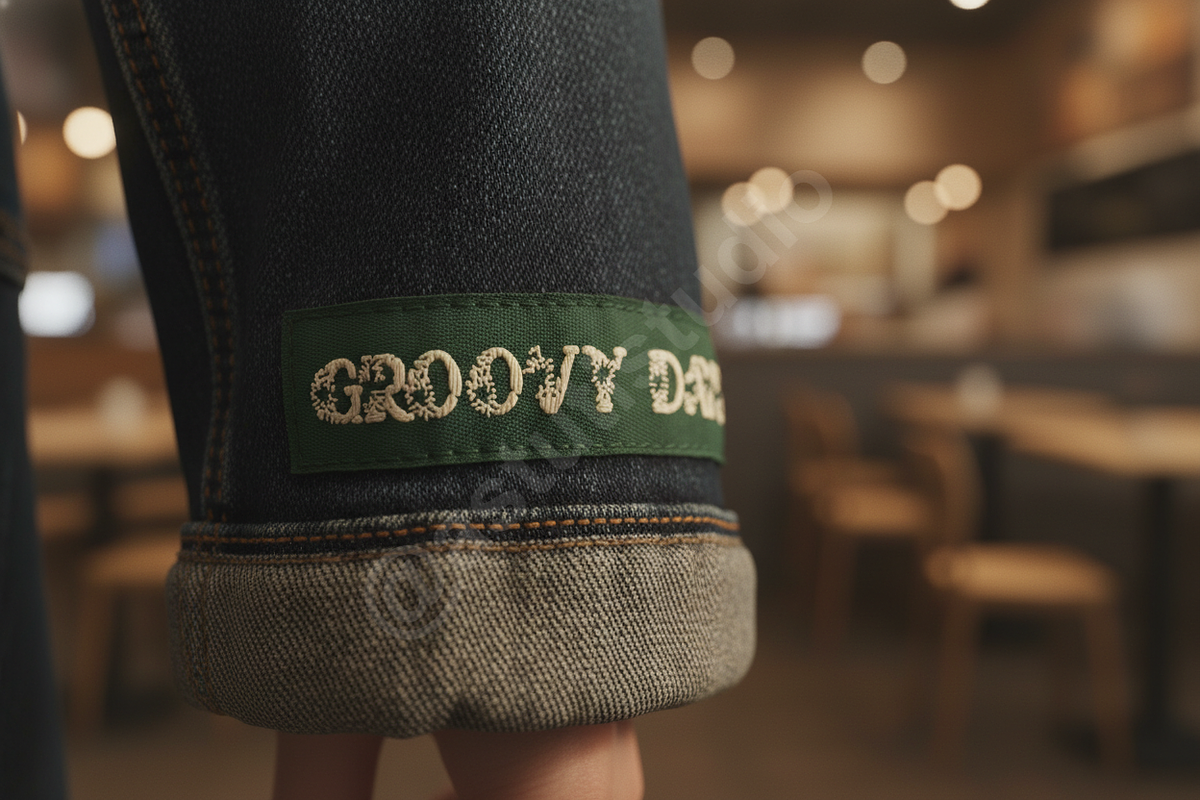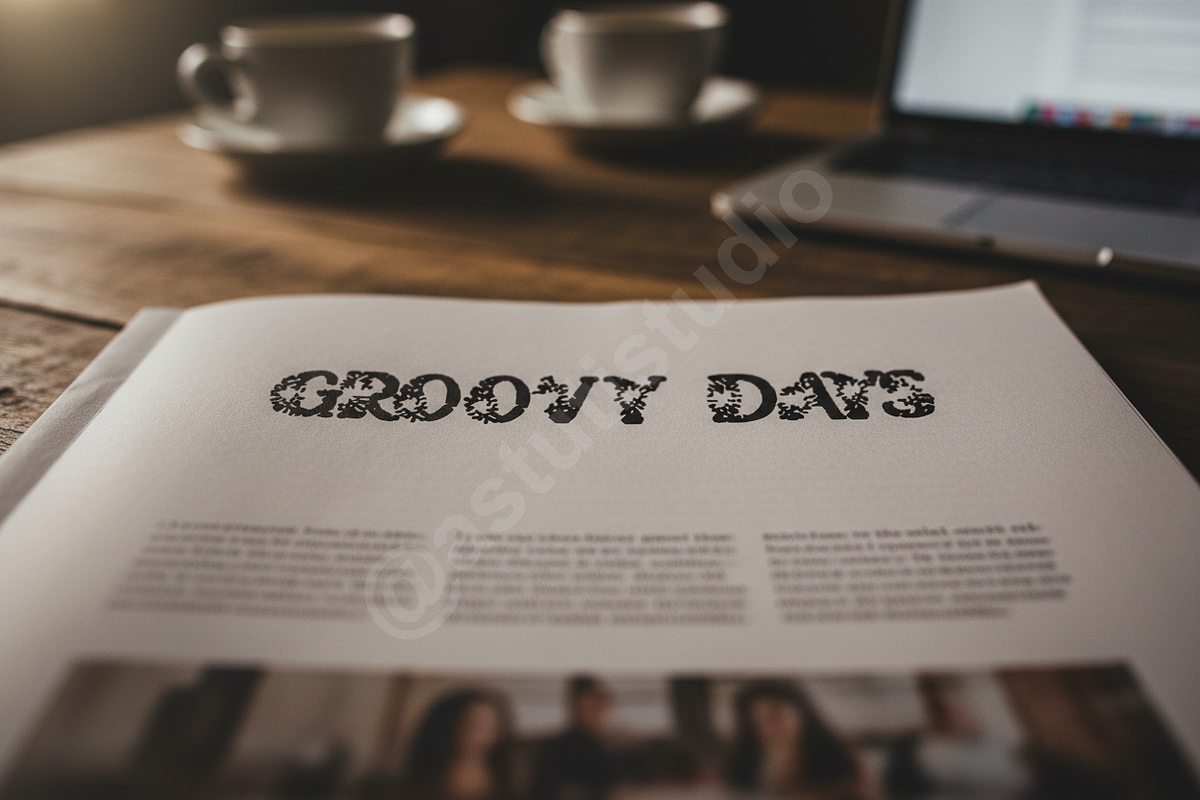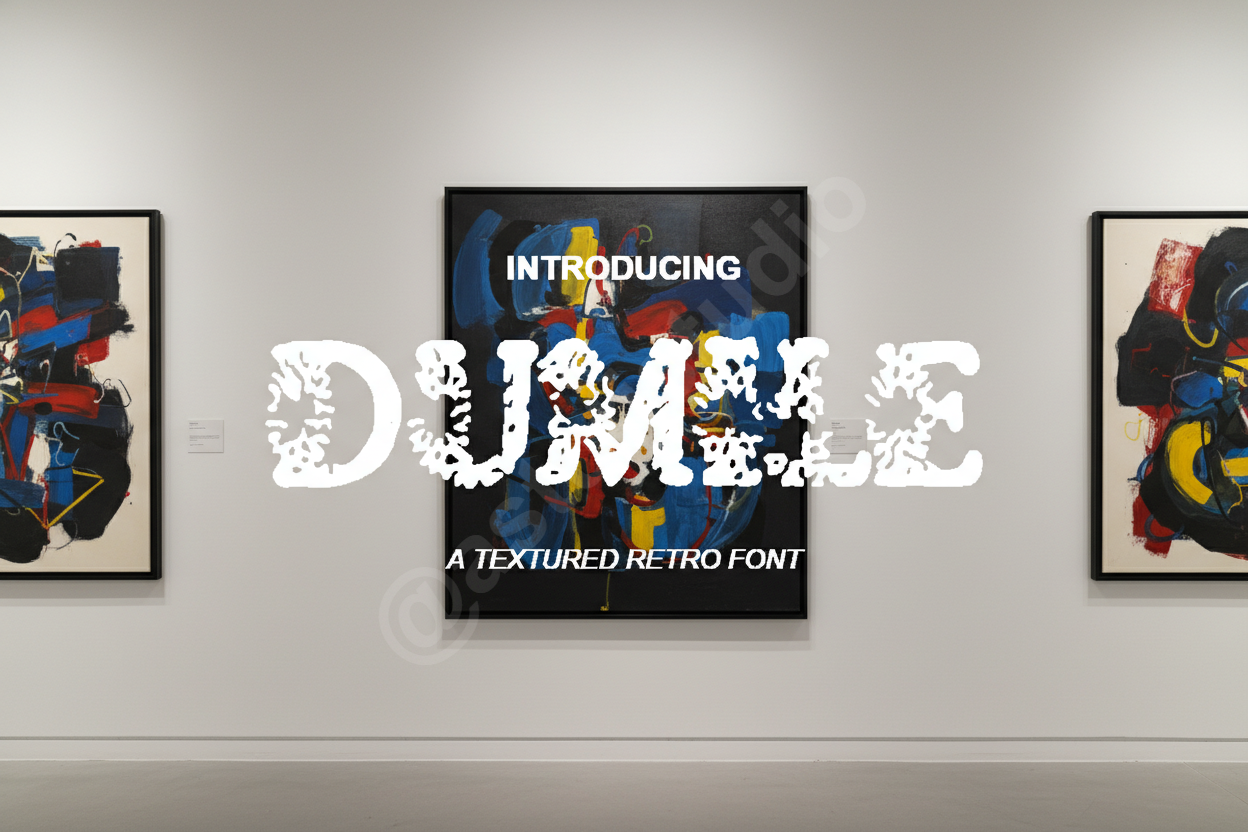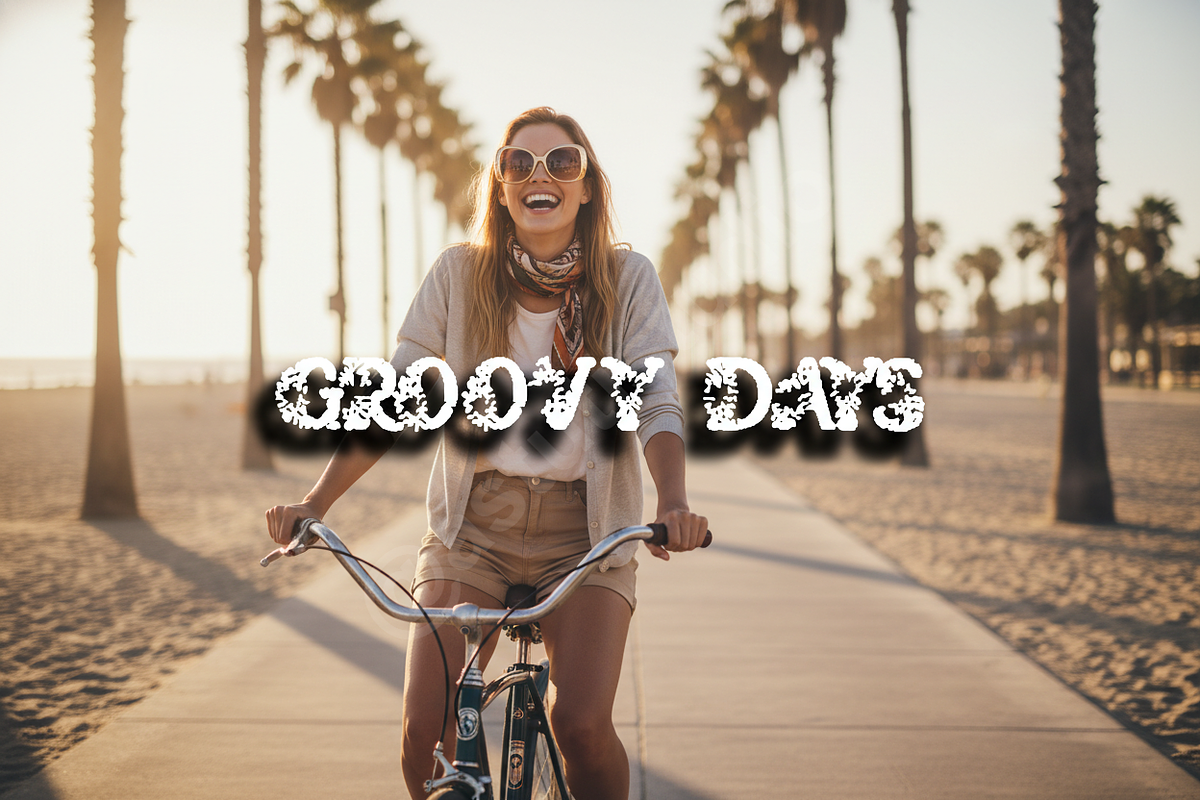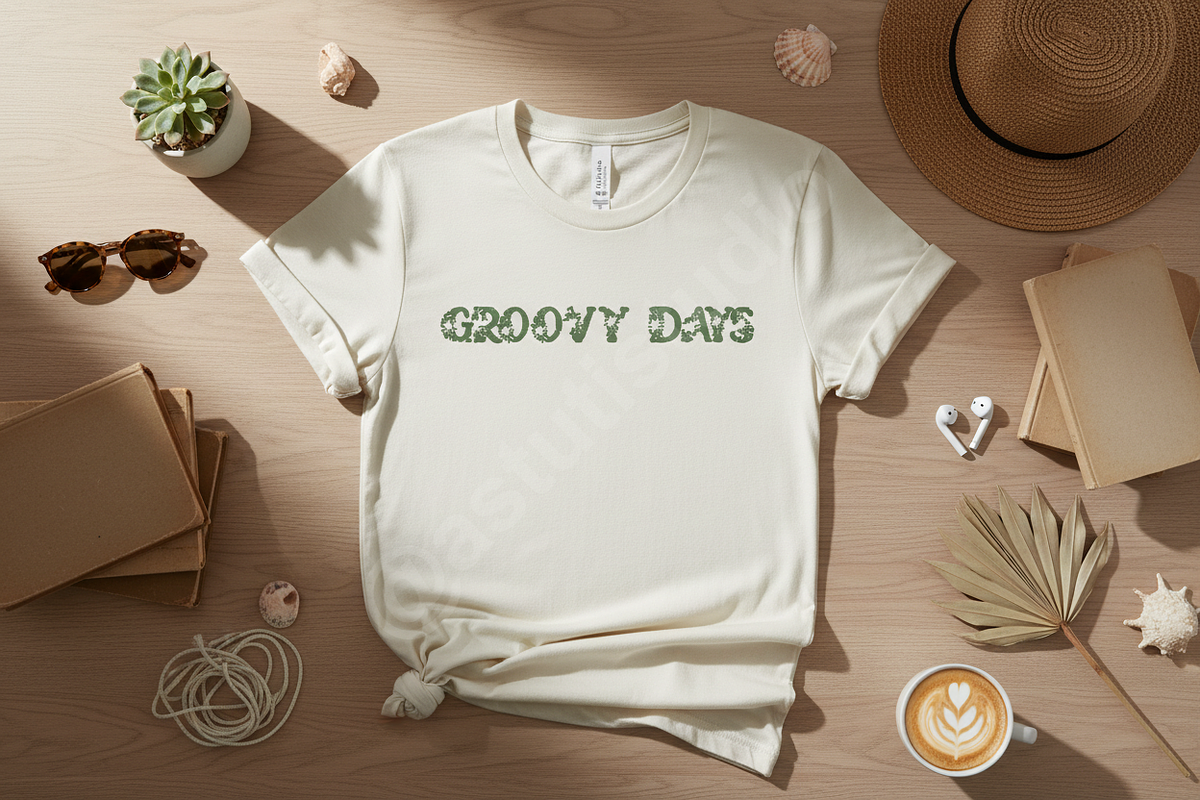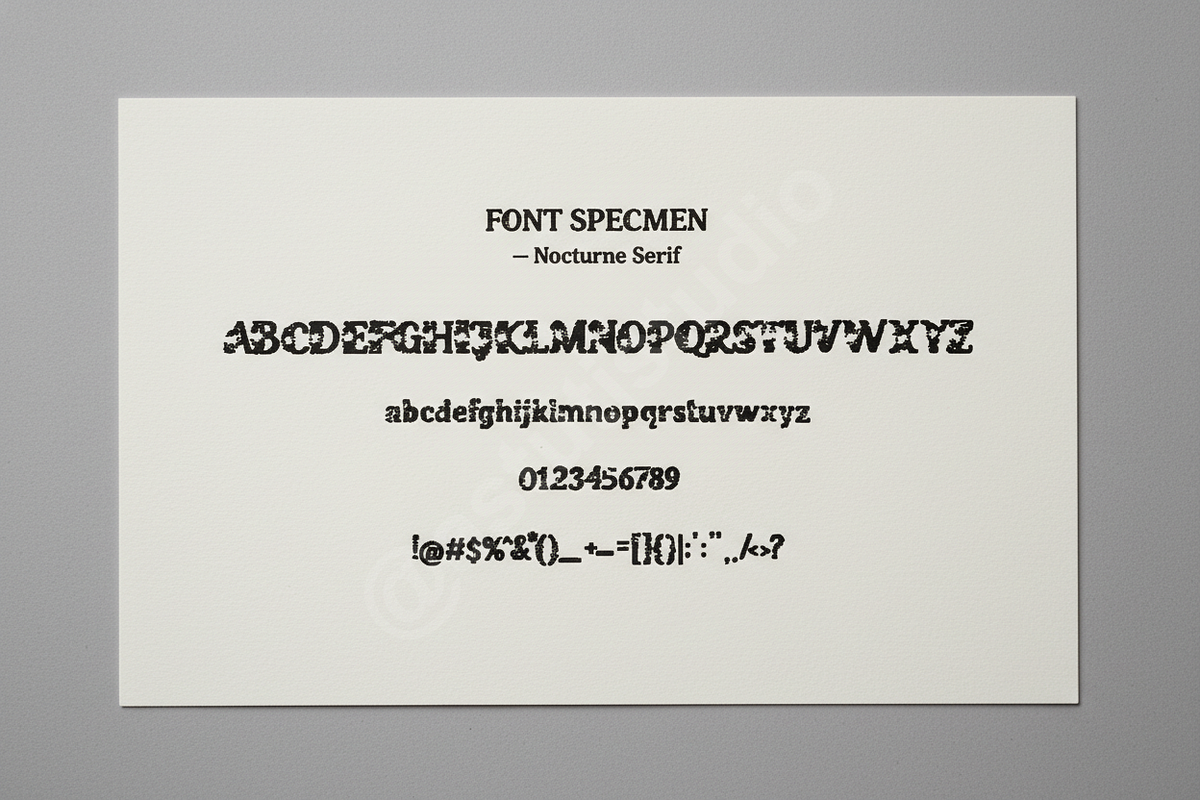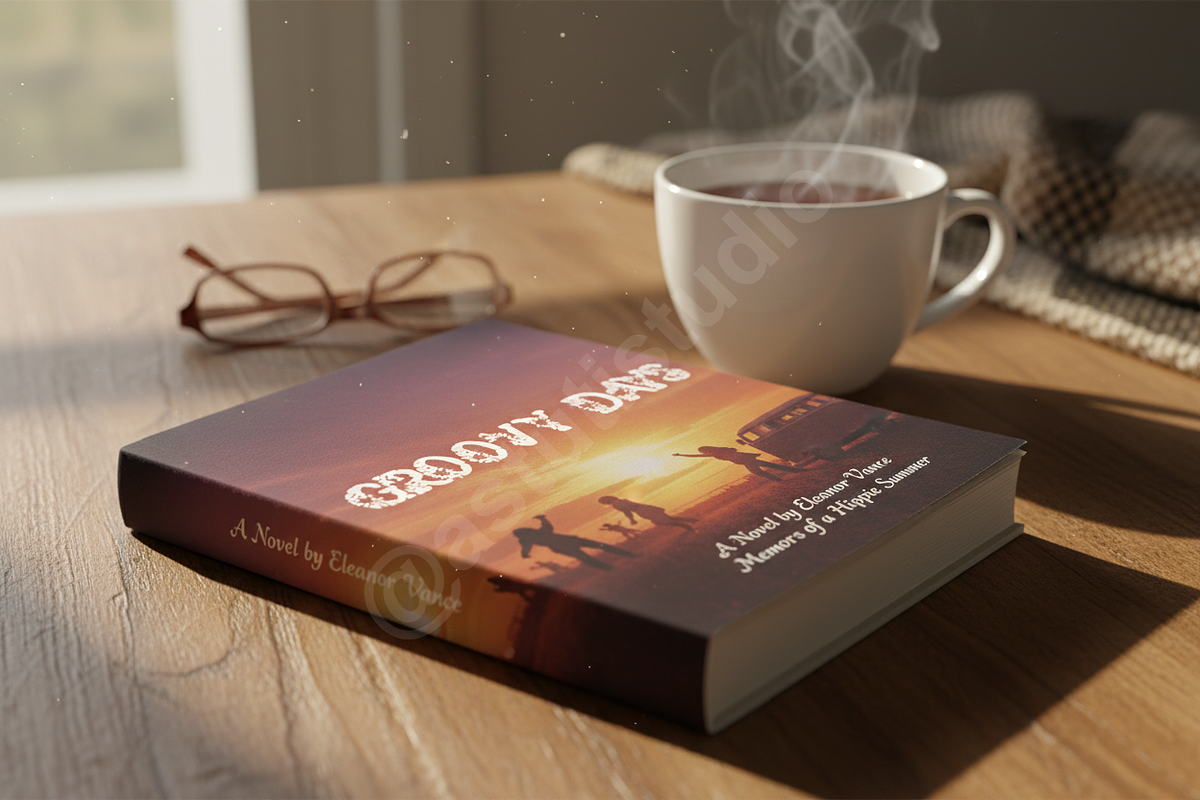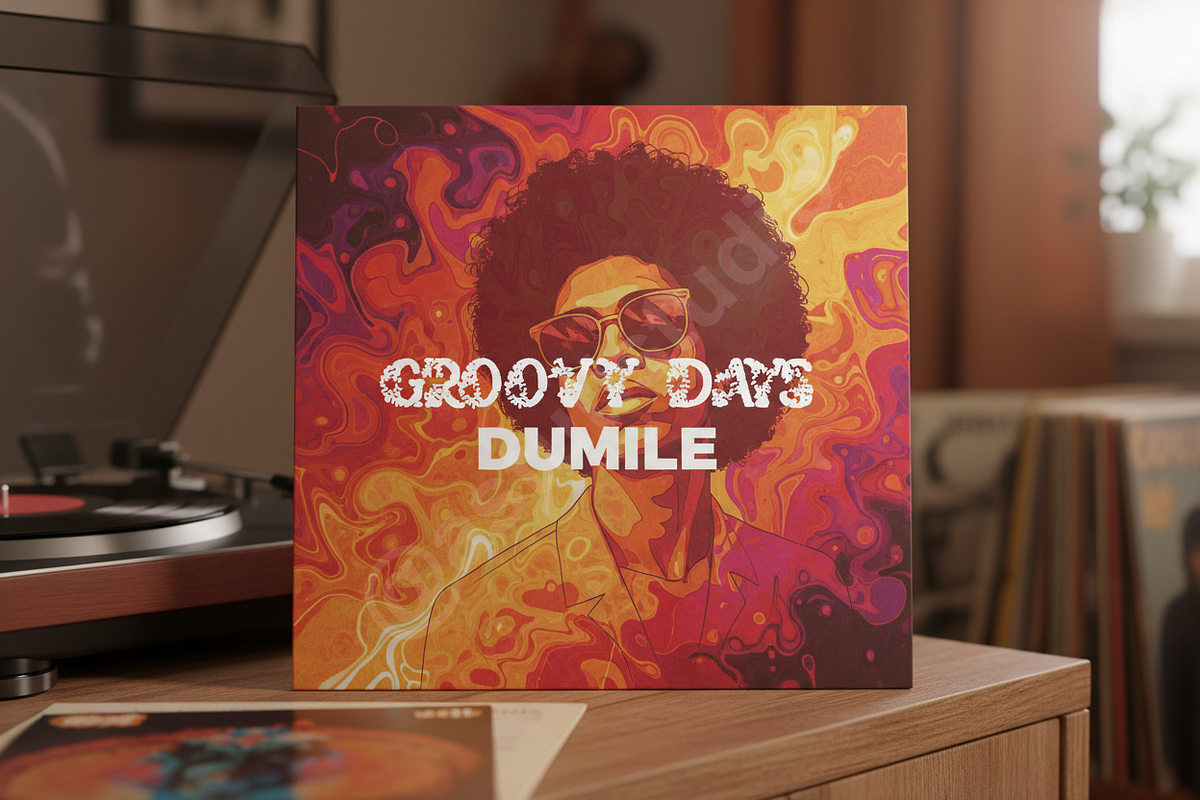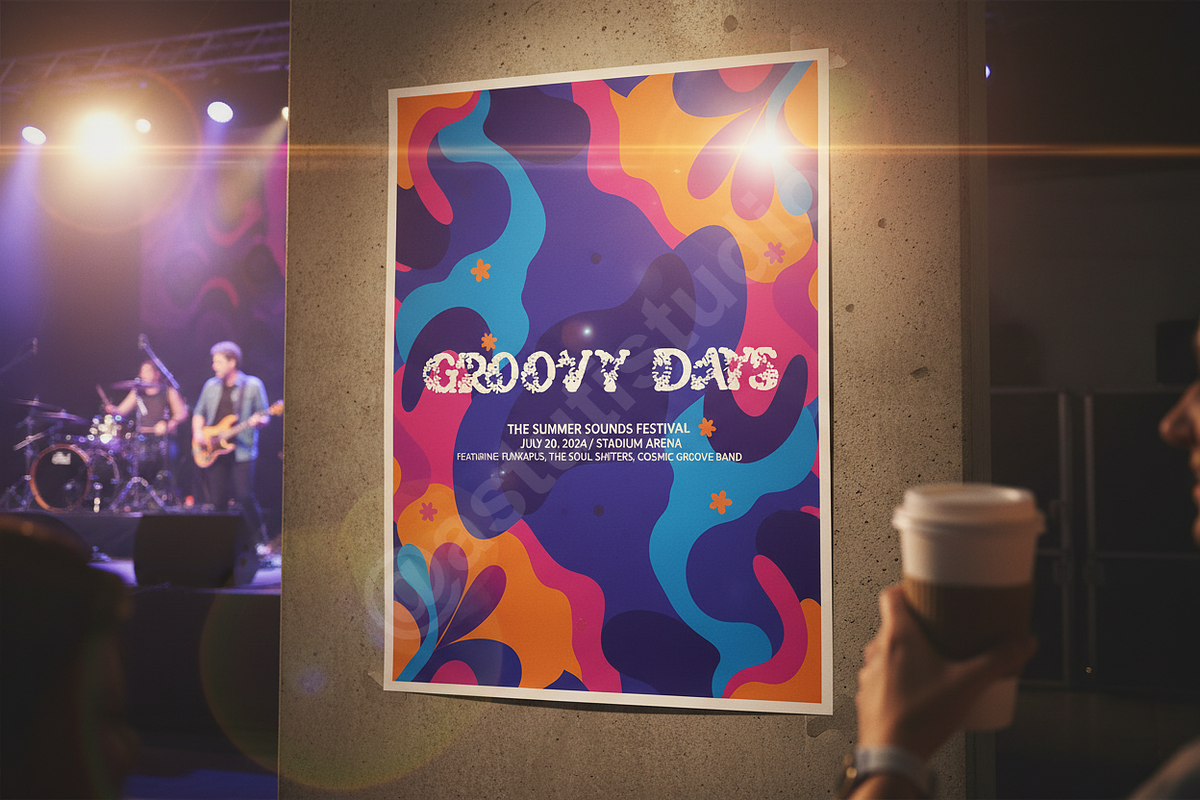
Dumile - Elegant Serif Typeface
Introducing Dumile, an exquisite serif typeface crafted for the discerning designer. Dumile embodies a sophisticated elegance, making it the quintessential choice for luxury branding, high-end editorial layouts, and impactful social media campaigns. Its refined curves and balanced proportions whisper exclusivity, transforming ordinary text into a statement of unparalleled class and prestige. Elevate your creative projects with Dumile, where timeless design meets modern sensibility.
- Elegant & Modern Serif Design
- Perfect for Luxury Branding & Identity
- Ideal for Editorial Design & Publishing
- Optimized for High-Impact Social Media Graphics
- Extensive Multilingual Support
- Full Set of Uppercase & Lowercase Letters
- Ligatures & Special Glyphs